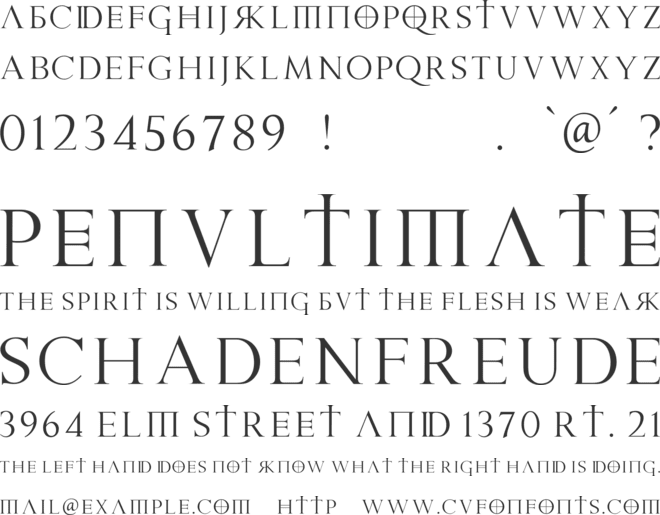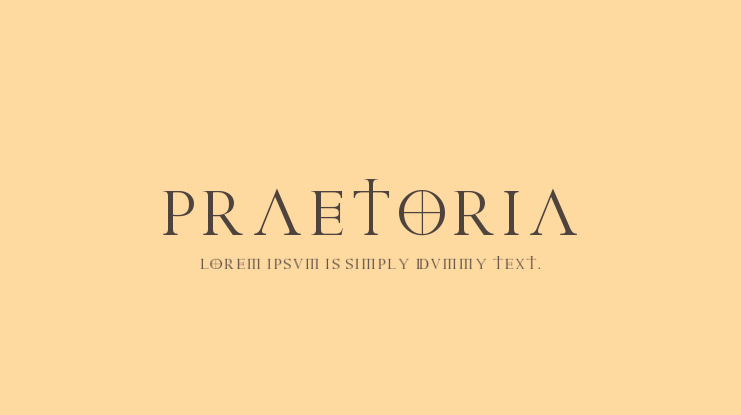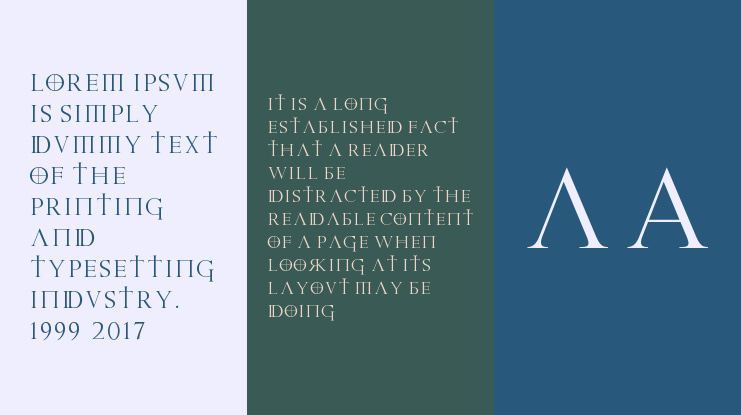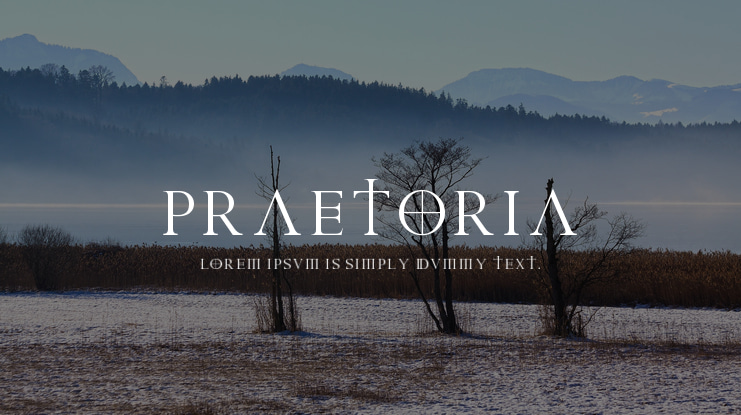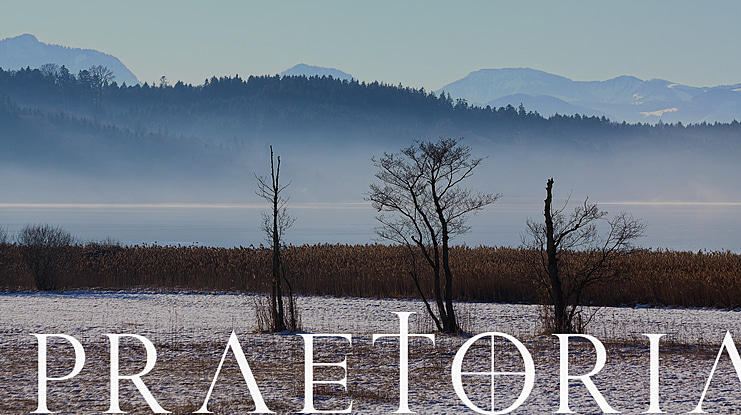
by Sharkshock
Praetoria is a serif titling font that was loosly modeled after the Roman square capitals used in ancient Rome. Some of the lowercase letters are ficticious variations of their uppercase counterparts. A few, however, such as the b and m were plucked from Russian and Greek alphabets respectively.
This display font is designed for games, movie posters, and book covers. You may use the uppercase letters exclusively but it is highly discouraged to do the same with the lowercase. It's recommended to simply use these sparingly as a compliment to uppercase. Basic Latin, kerning, numbers,